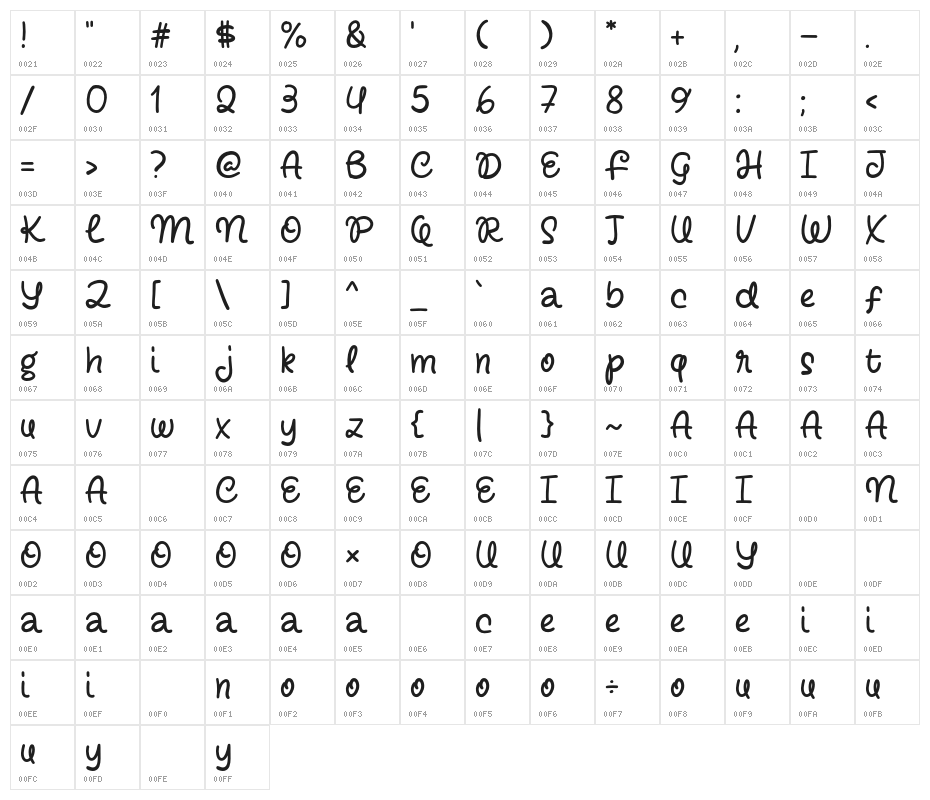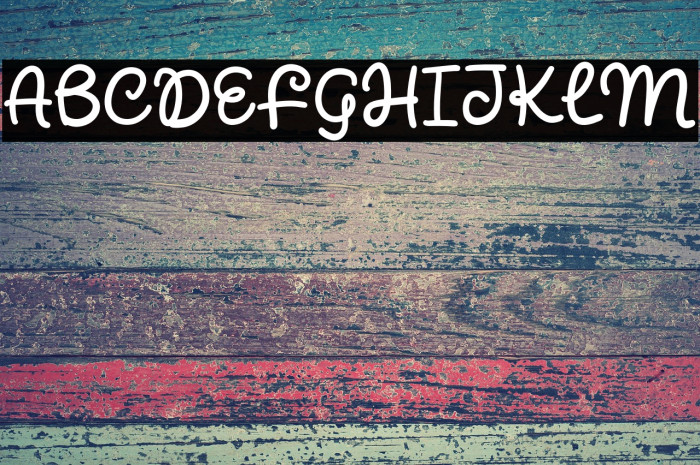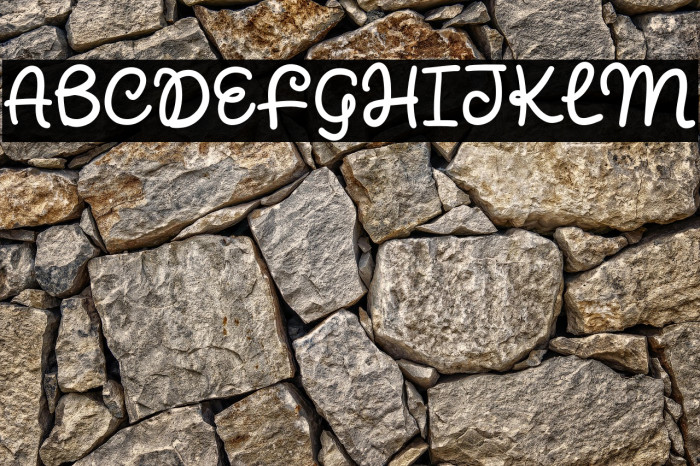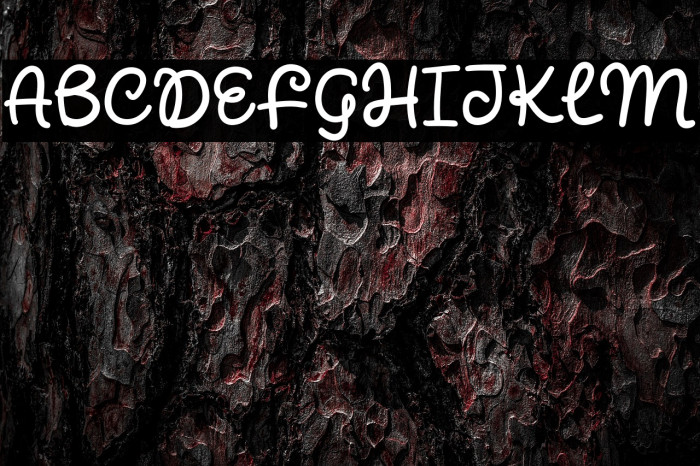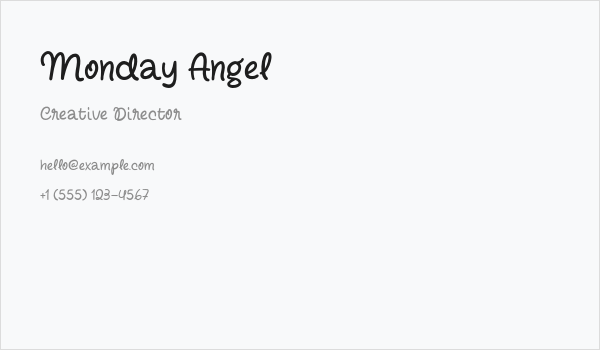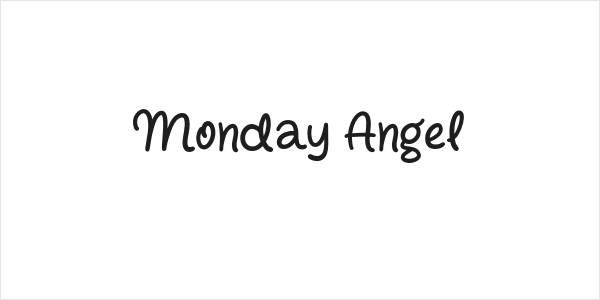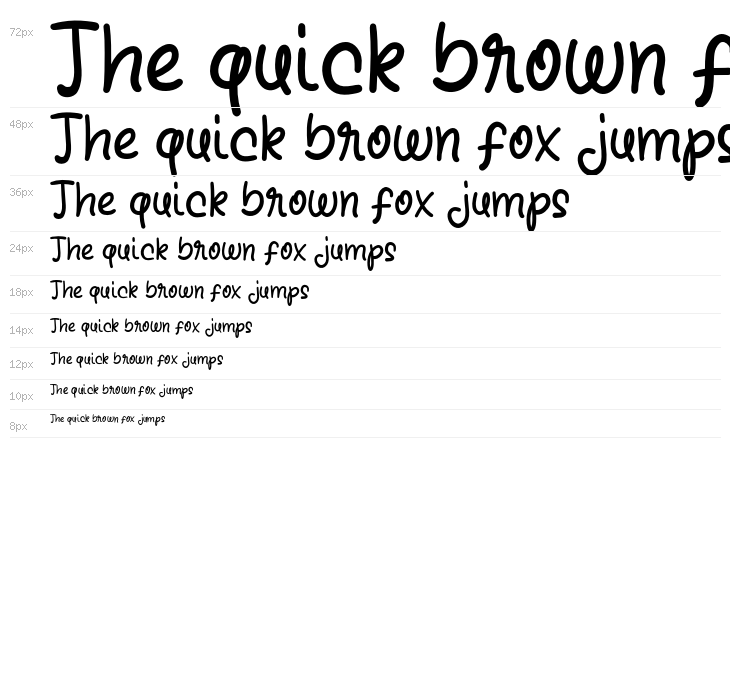
Monday Angel Font
Monday Angel Description
This font features a playful and whimsical handwritten style, characterized by smooth, flowing curves and a casual, friendly appearance. The letters are slightly slanted, giving it an informal and approachable feel. The uppercase and lowercase letters maintain a consistent style, with rounded edges and a uniform stroke width that adds to its legibility. The numerals and special characters are designed to match the overall aesthetic, ensuring coherence across all text elements. This font is ideal for projects that require a personal touch or a sense of warmth and creativity.
| Overall Style | Casual |
| Use Case | Headlines, Informal text, Creative projects |
| Proposed Projects | Greeting cards, children's books, casual invitations, and personal blogs. |